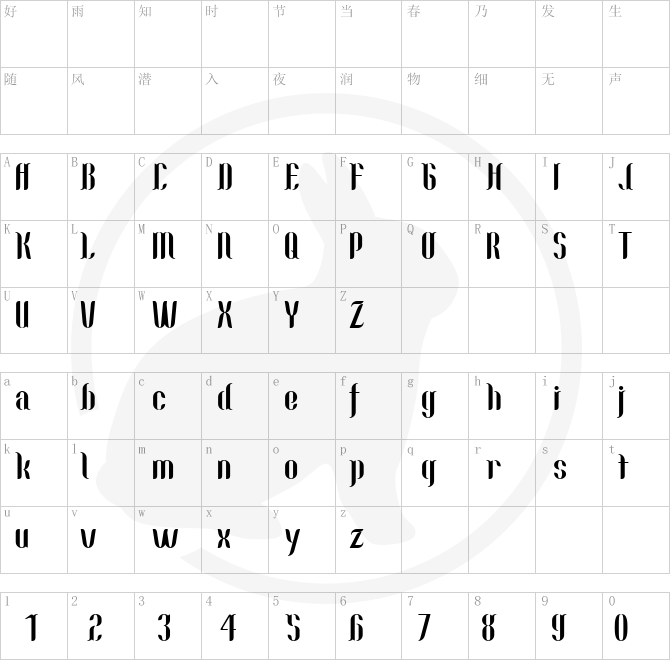
- Font Name:Nallo
Nallo.ttf is a very beautiful artistic font, Nallo.ttf is widely used in the design and printing of various books and pictures,Nallo.ttf has a strong visual impact,Nallo.ttf is a commonly used font in newspapers, magazines and books, and is used in posters, e-commerce Poster design, store design, logo design, font design and other fields.Nallo.